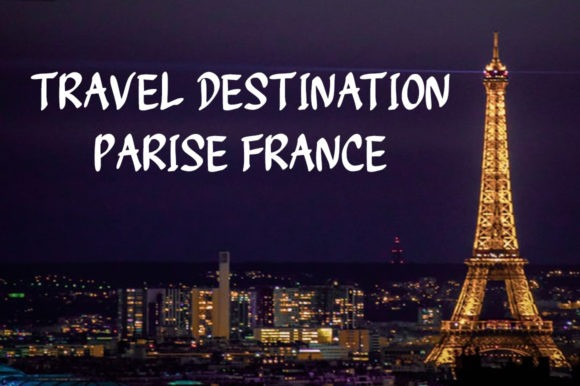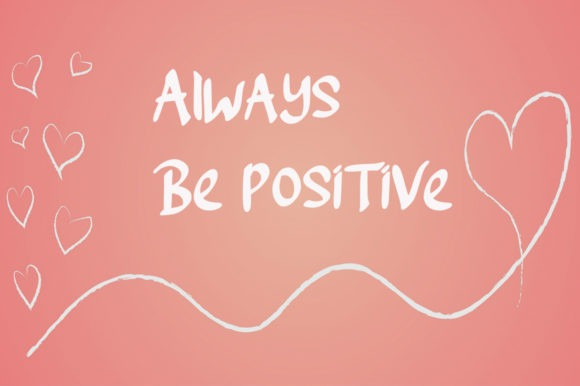
Quarantinus Script Font
The Quarantinus font was created during the 2020 covid 19 lock-down. Tranquility being all around, the JOEBOB graphics studio almost felt like a monastery, and as a result my style of writing and my choice of pen had to fit.
All this writing was turned into an authentic handwritten script font with over 150 ligatures, which make it look very credible and spontaneous.
The font is especially suitable for personalized ‘handwritten’ notes, cards and messages. It can be used on T-shirts and on shop-windows. It has an ‘instant logo’ quality, it can be used for tattoo-designs and it screams home-made everything. And in case you are a writer you now have an option to print your work in a way that seems as if you wrote it yourself.
Please note that even though the font comes with a complete set of Western characters, accents and special signs, the Cyrillic and Greek characters that are in the font do not make a complete set.